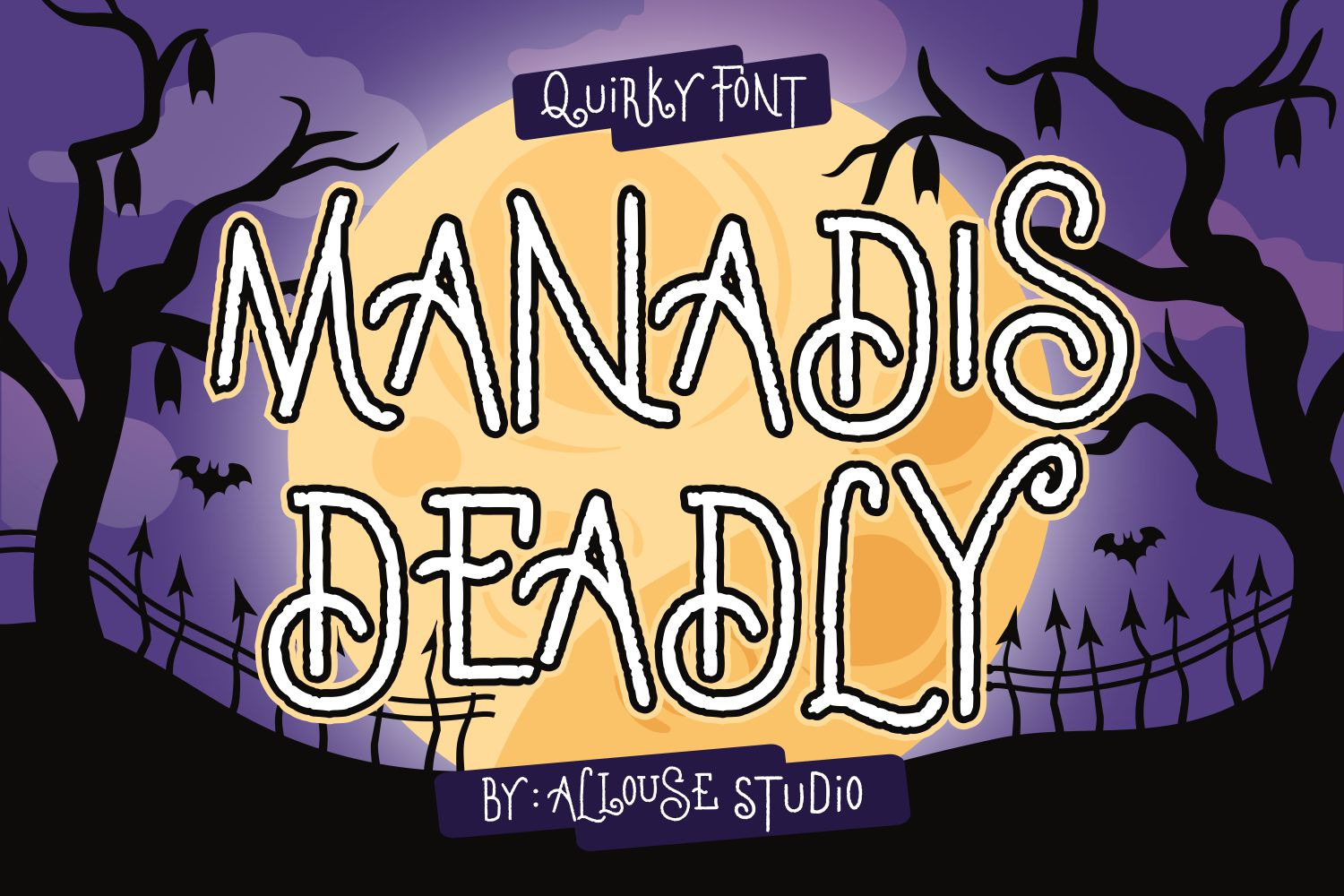
Manadis Deadly Font
Introducing by Allouse.Studio
Proudly Present, Manadis Deadly.
Manadis Deadly is a Quirky Font.
Manadis Deadly is perfect for product packaging, branding project, megazine, social mediaq, or just used to express words above the background.